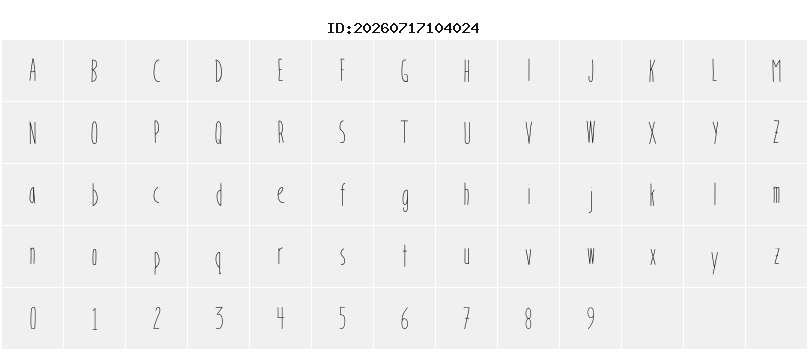
• Font Name: Bookends BookendsWith Accents
• Designer: Joanne Abellar
About Bookends BookendsWith Accents.otf
Bookends BookendsWith Accents.otf is a modern, elegant sans-serif font designed for ultimate readability and visual harmony. Perfect for branding, headlines, web design, and print materials.